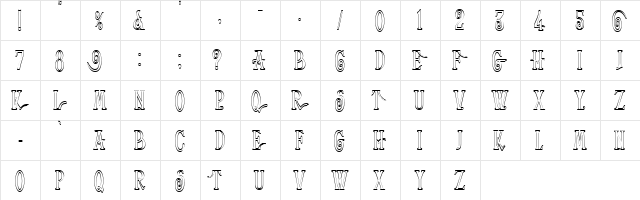
Helena-Outline Roman Font Preview
Helena-Outline Roman
Design Context for Helena-Outline Typeface
Helena-Outline brings ornamental detail and strong personality to headlines and identities, where visual impact matters more than quiet functionality.
Font Pairing: Pair with a clean neutral sans-serif for body copy to let Helena-Outline's character lead without overwhelming the composition.
Pro Tip: Use Helena-Outline exclusively at display sizes — it was designed to be seen, not read at length. Let a neutral companion handle body copy.